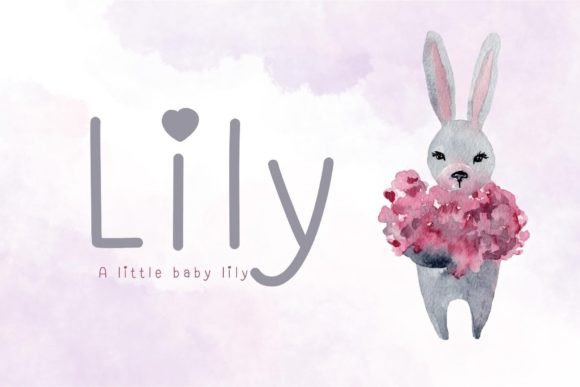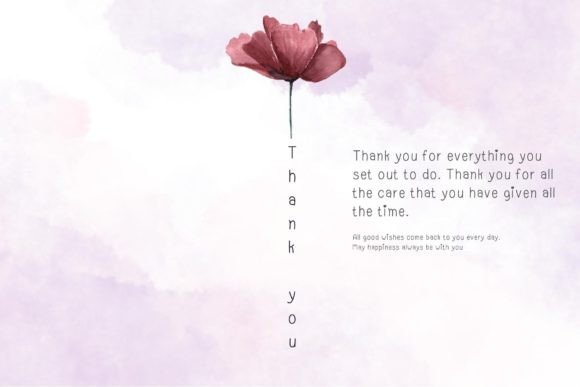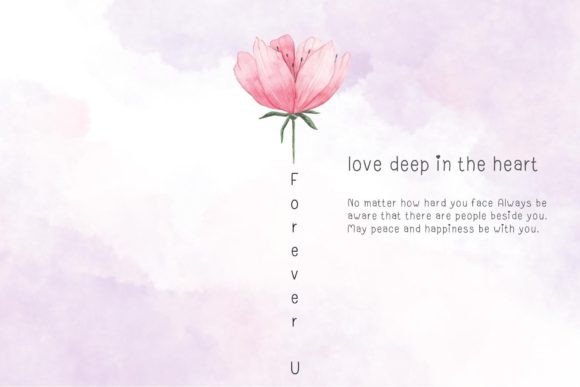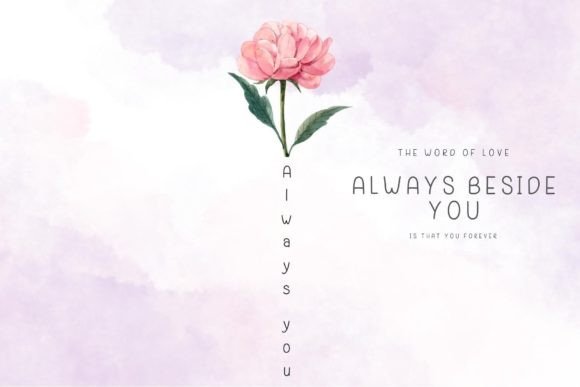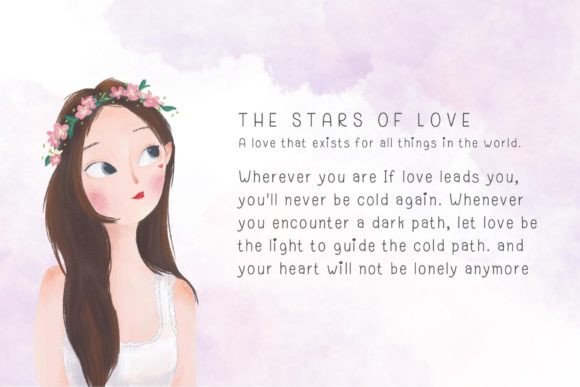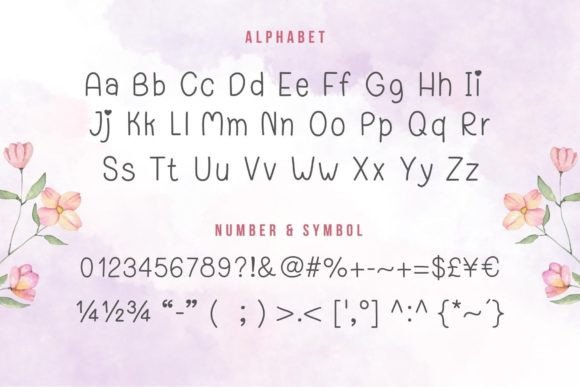
Lily Font
About Lily Font
Lily is a charming handwritten font that effortlessly embodies simplicity and fun. Designed to make your creations stand out with an unassuming charm, this font brings a delightful touch to your designs. Its versatility shines, making it particularly well-suited for minimalist themes, whether in black and white or a burst of vibrant colors.
The essence of Lily lies in its simplicity, a quality that elevates your designs by providing a clean and uncluttered aesthetic. The handwritten style adds a personal touch, creating a friendly and approachable vibe. This makes Lily the perfect choice for projects where you want to convey a sense of simplicity and fun without sacrificing visual impact.
Minimalist theme designs find a perfect companion in Lily. The font’s clean lines and unpretentious charm complement the principles of minimalism, allowing your content to speak volumes without unnecessary embellishments. Lily ensures that your designs are not only simple but also memorable, adding a touch of character to each element.
Whether your design preferences lean towards a monochromatic palette or a burst of colors, Lily adapts seamlessly to both. Its handwritten style retains its playful character, making it equally appealing in black and white compositions as well as in vibrant and colorful layouts. Lily’s flexibility ensures that it remains a valuable asset across a range of design contexts.
Lily invites you to infuse your creations with a sense of joy and lightheartedness. The font’s charming simplicity adds a layer of fun to your work, turning each project into an enjoyable and engaging visual experience. As you incorporate Lily into your designs, you’ll find that it not only enhances the overall aesthetics but also brings a touch of personality to your creative endeavors.
Incorporate Lily into your toolkit and let its handwritten charm become a signature element in your designs. Whether you’re working on digital graphics, print materials, or any other creative project, Lily adds a delightful and fun-loving aspect that sets your work apart. Make your creations more enjoyable and memorable with Lily – the perfect font for infusing simplicity and fun into your design journey.